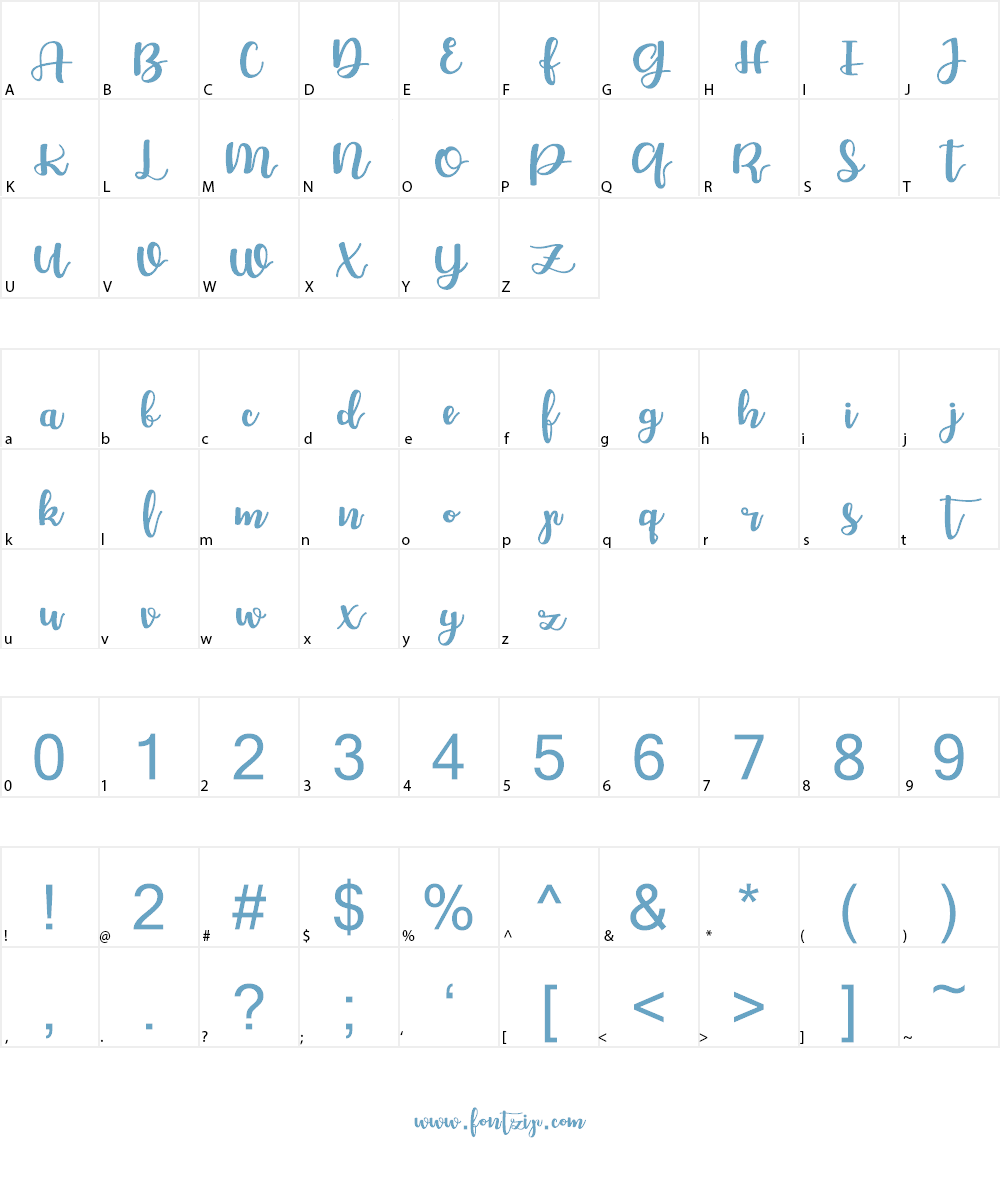
The Bellco is a fresh & modern script font. It has a fun and elegant feel and is suitable for logos, branding, quotes, posters, greeting cards, and more.